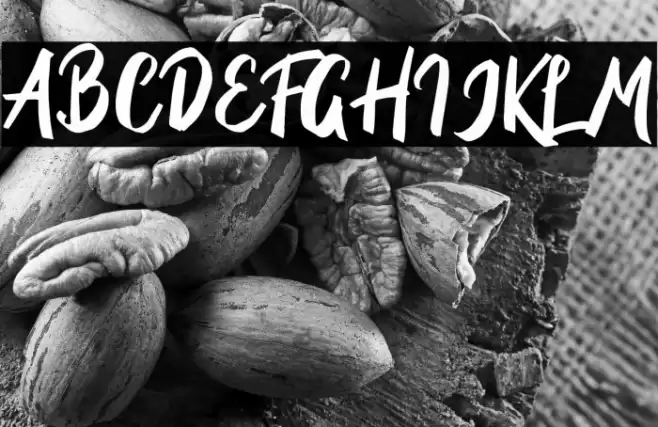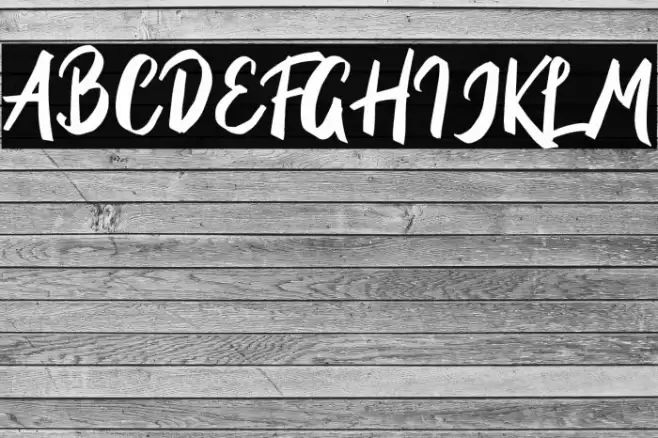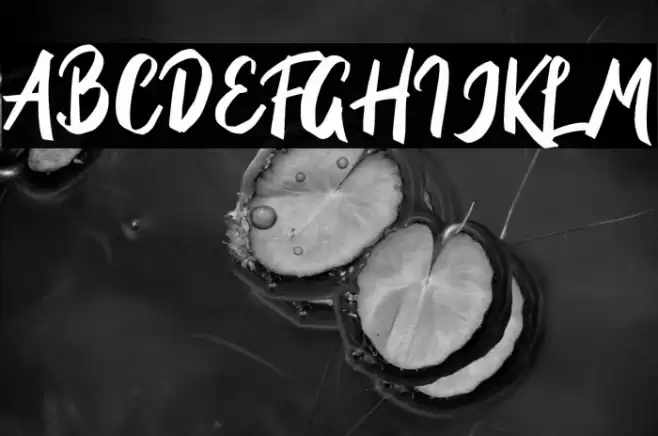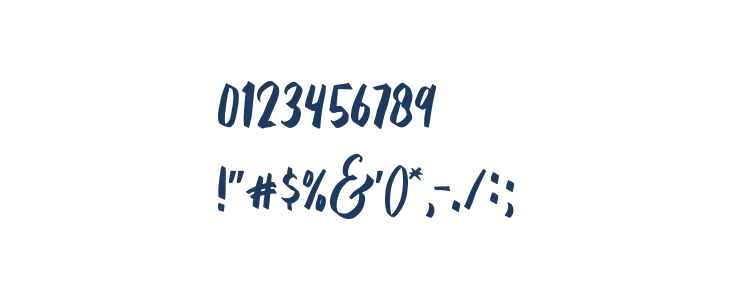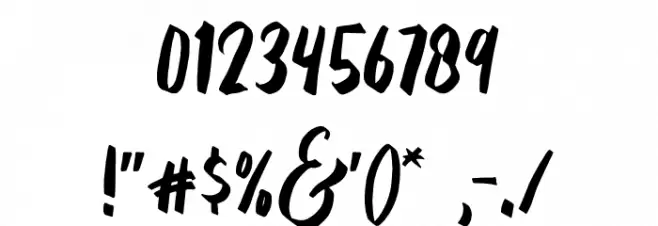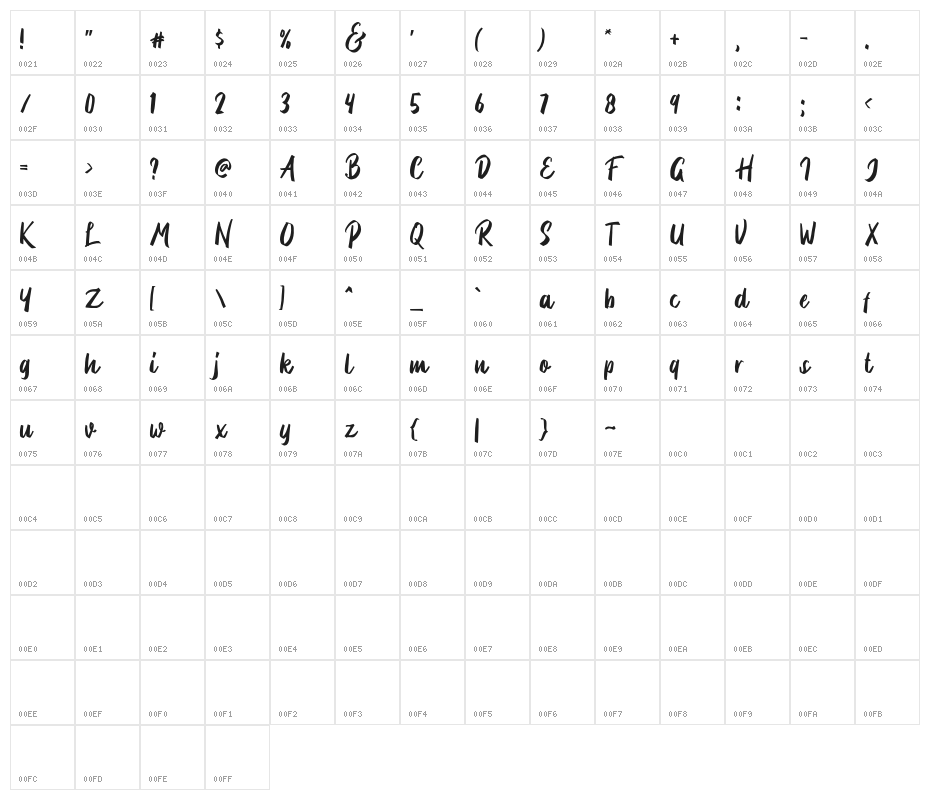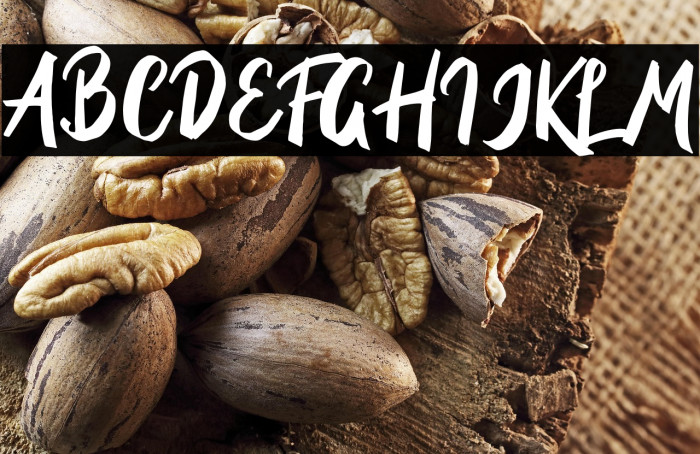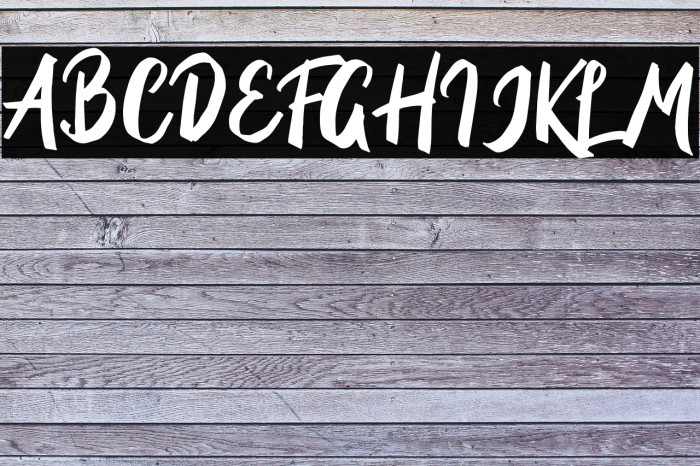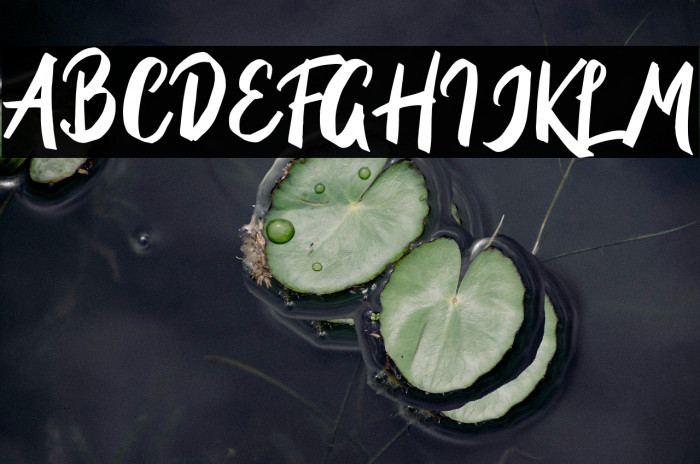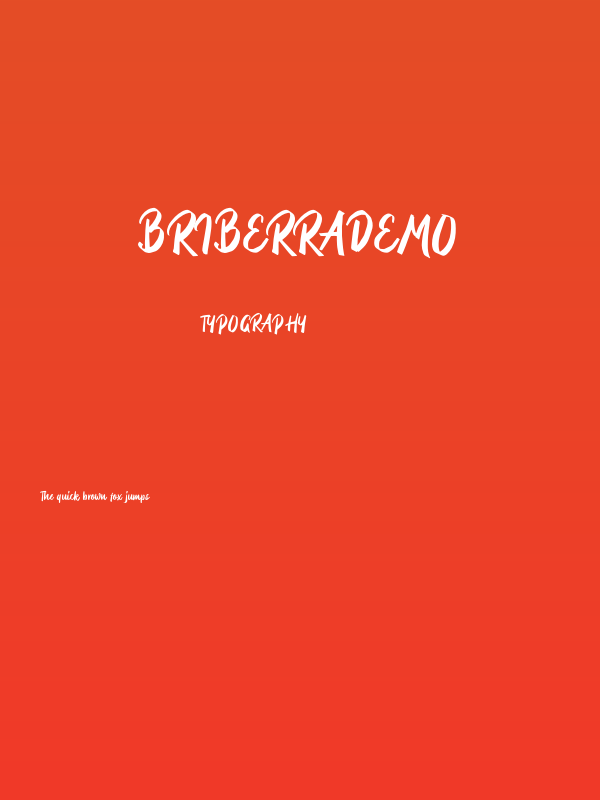
BriberraDEMO Font
BriberraDEMO Description
This font features a bold, expressive style with a handwritten appearance. The characters are fluid and dynamic, with a slight slant that adds to the casual, yet sophisticated feel. The uppercase letters are bold and commanding, while the lowercase letters maintain a consistent flow, enhancing readability. Numbers and special characters are crafted with the same attention to detail, ensuring a cohesive look across all text. This font's brush-like strokes give it a lively and energetic vibe, making it suitable for creative and artistic projects.
A bold, handwritten-style font with fluid, dynamic strokes from Uncategorized fonts.
- Overall Style: Modern, Decorative